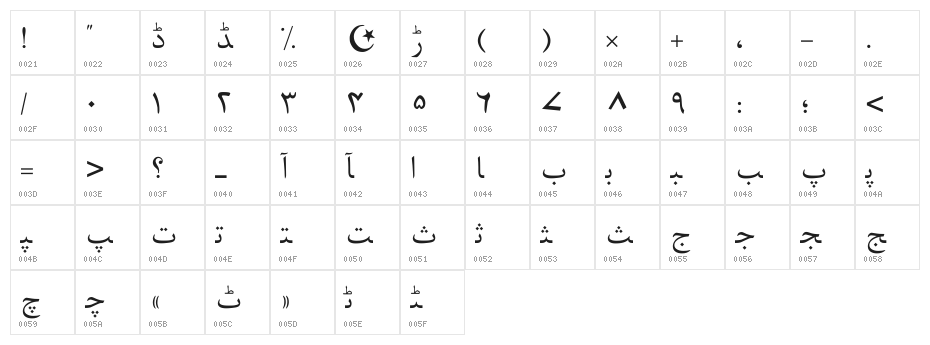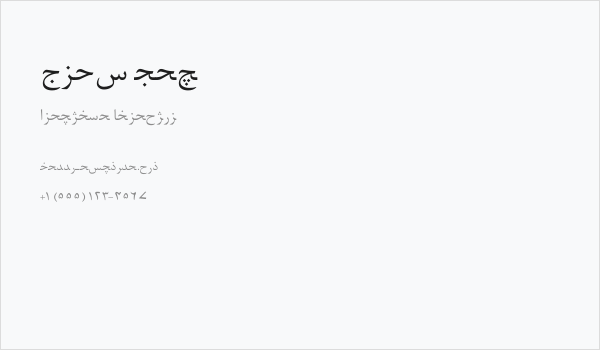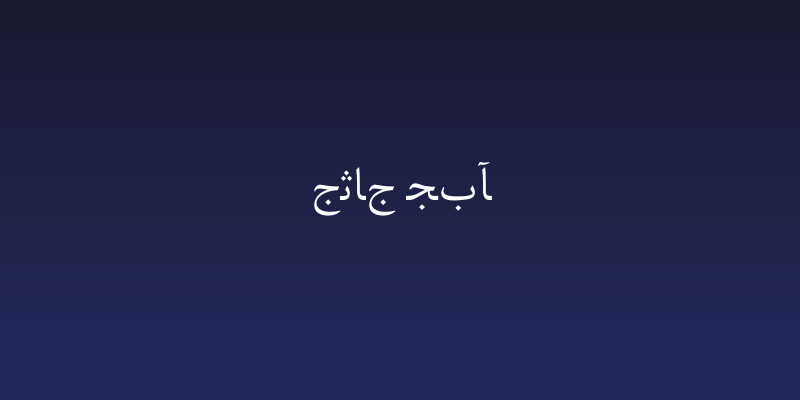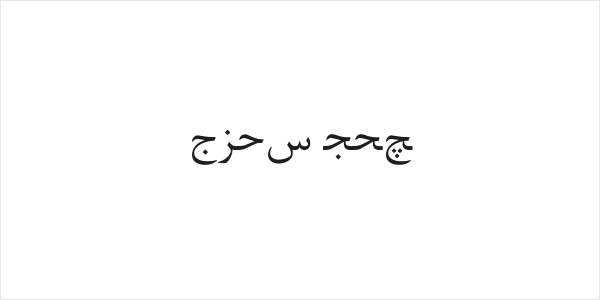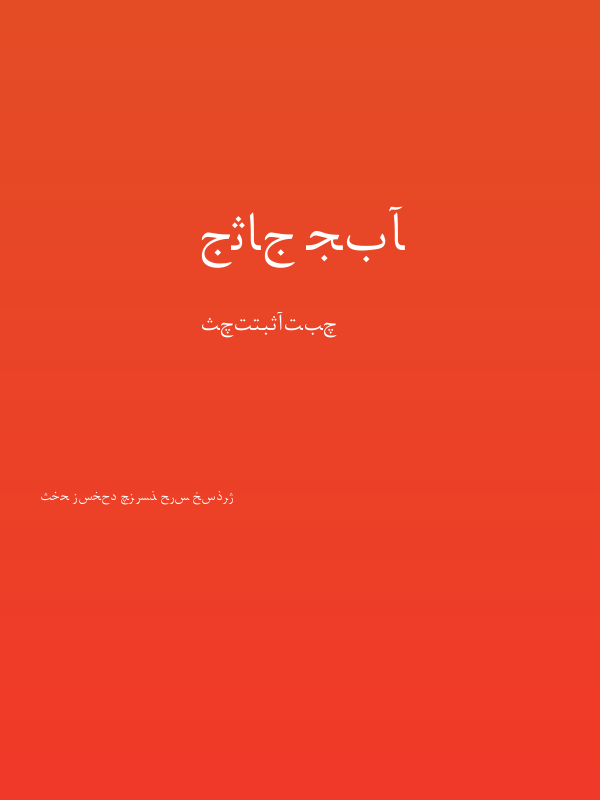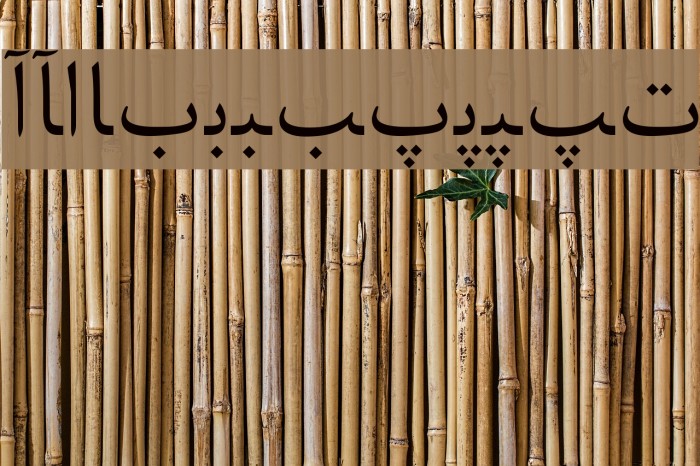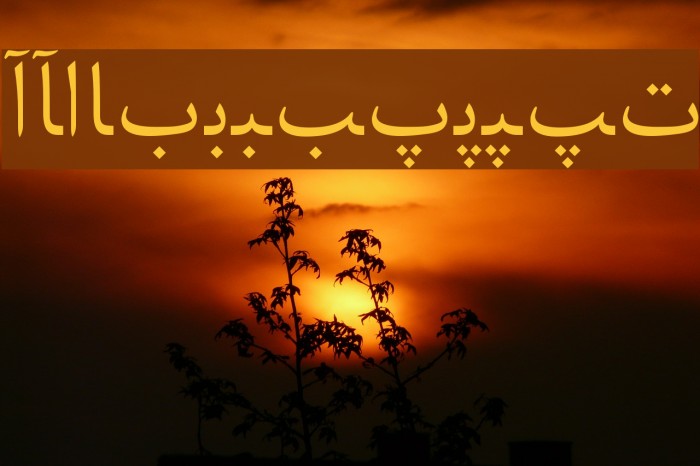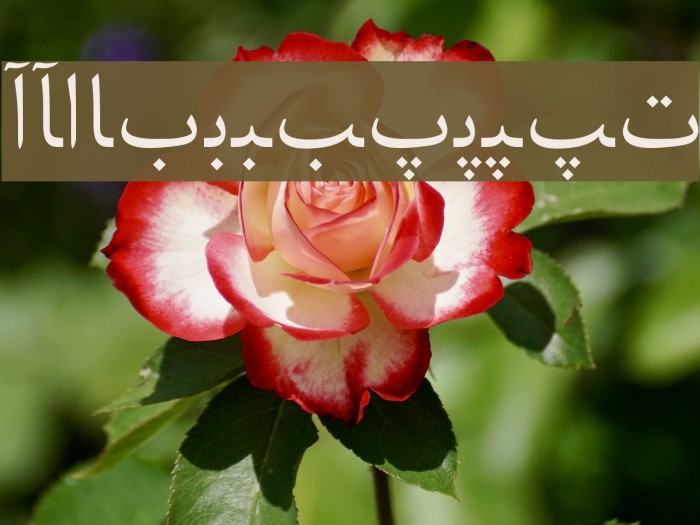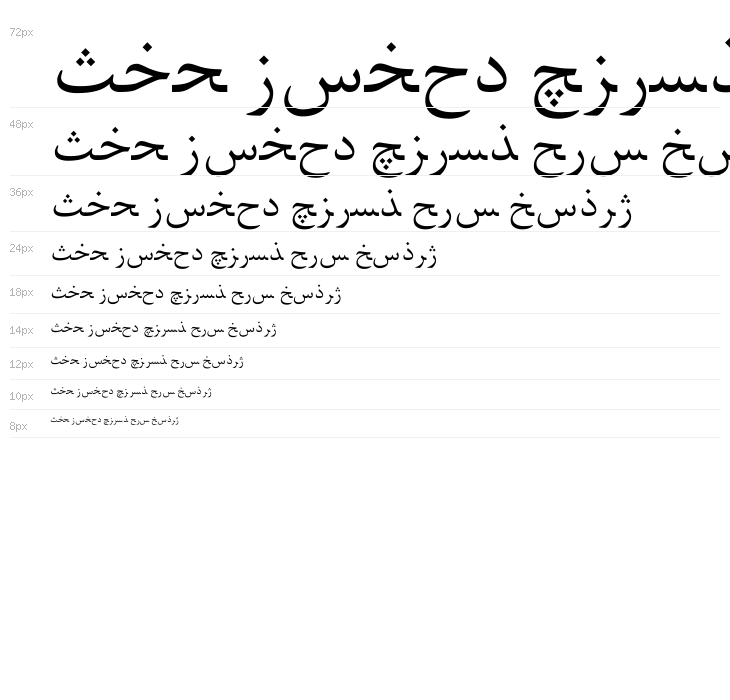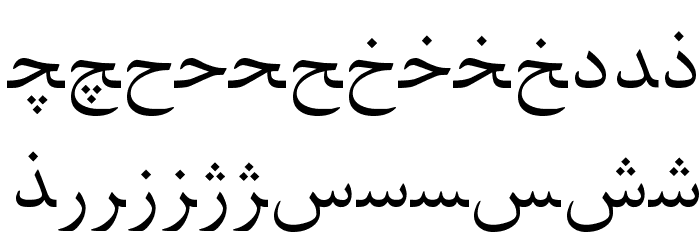
Urdu Web Font
Urdu Web Description
This font is a traditional Urdu script that features elegant and flowing characters, capturing the essence of classical calligraphy. The characters are intricately designed with smooth curves and a consistent stroke width, giving it a harmonious and balanced appearance. The script maintains a high level of readability while preserving the artistic flair typical of Urdu calligraphy. The numerals and special characters are designed to complement the script, maintaining the overall aesthetic. This font is ideal for projects that require a touch of cultural authenticity and elegance.
| Use Case | Headlines, Artistic projects, Cultural publications |
| Proposed Projects | Ideal for cultural publications, traditional event invitations, artistic projects, and educational materials in Urdu. |